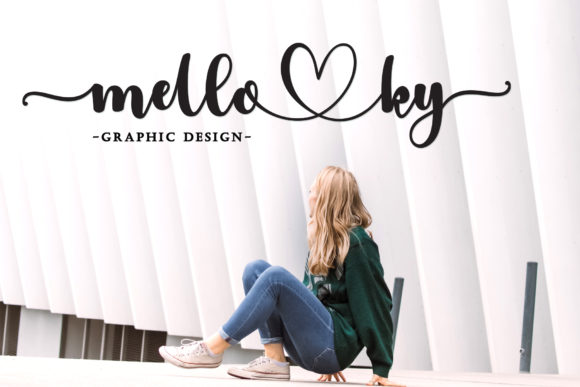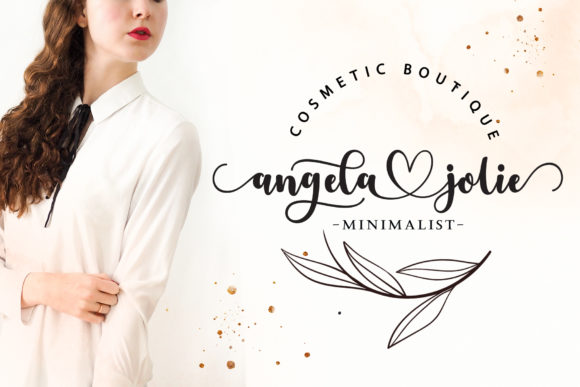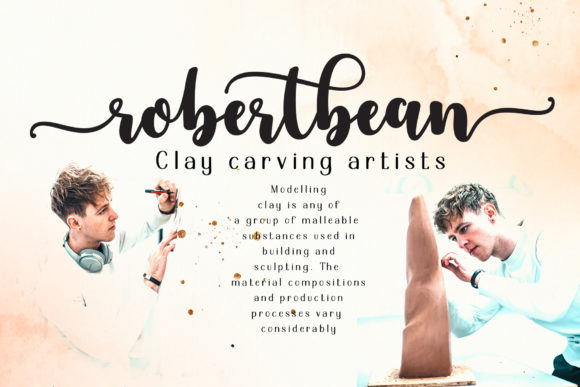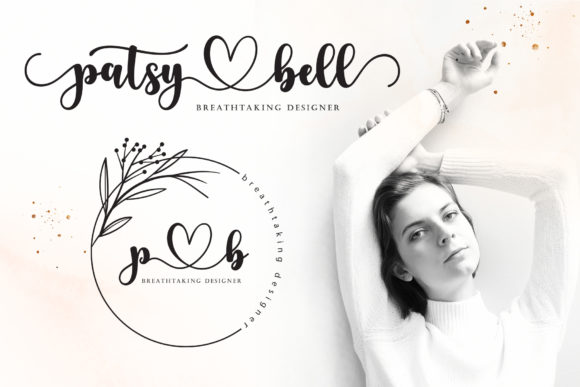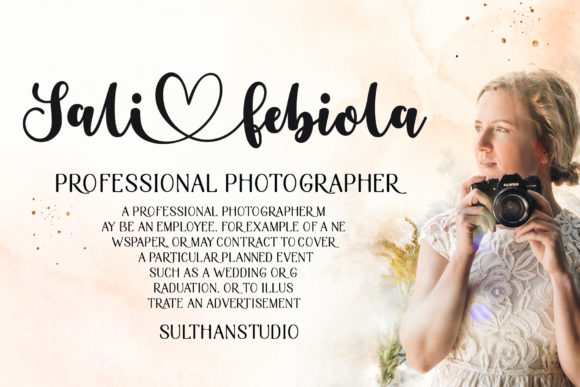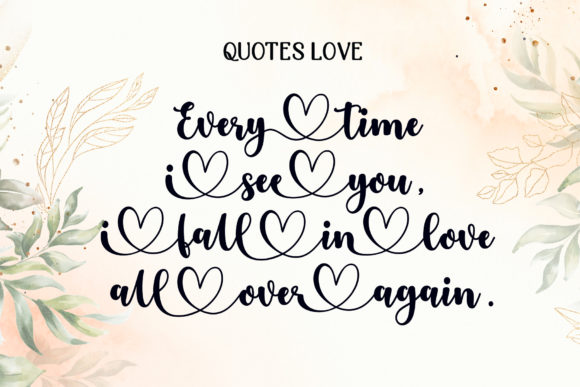
Introduction to Nela Neta Font
Have you ever been working on a creative project, and that perfect font just evades you? The one that makes your design come alive, and captures the essence of your brand? I know I have. It’s that feeling of excitement and anticipation when you finally find the perfect design resource. And today, I’m thrilled to introduce you to the Nela Neta Font, a lovely and timeless handwritten font that’s sure to take your designs to the next level.
| 👤 Author | Sulthan Studio |
This beautiful font is a must-have for any designer looking to add a personal touch to their work. With its unique and beautiful touch, the Nela Neta Font is perfect for creating eye-catching logos, branding, and quotes. Plus, its PUA encoded feature makes it easy to access all of the glyphs and swashes, giving you endless possibilities for your creative projects.
Key Features of Nela Neta Font
- High-quality design resource perfect for creative projects, offering a unique and elegant aesthetic.
- Designed with a focus on high-resolution display, ideal for use in print and digital media, including signage, logos, and branding materials.
- Supports a wide range of languages, making it a versatile design resource for international creative projects.
- Can be easily scaled to fit various design elements, from small text to large headings, without compromising on quality or readability.
Honest Review: Nela Neta Font
I recently had the chance to work with the Nela Neta Font, and I must say it’s a great addition to any designer’s toolkit. One of the things that stood out to me was the high quality of the font itself, it’s clear that the creators put a lot of time and effort into crafting a truly unique and beautiful design.
One of the things that works well with the Nela Neta Font is its versatility. It’s perfect for a wide range of creative projects, from logos and branding to web design and print materials. It’s also available as a free download, which is a huge bonus for designers on a budget.
Here are a few things that I particularly like about the Nela Neta Font:
- ✨ High quality design that’s perfect for a variety of projects
- ✨ Versatile and easy to use
- ⚠️ The font doesn’t have a transparent background, which can make it tricky to use on complex designs
- ⚠️ The font is only available in a few weights and styles, which can limit its use in certain situations
Overall, I’m really impressed with the Nela Neta Font. It’s a great design resource that’s perfect for anyone looking to add a touch of elegance and sophistication to their creative projects.
Tips for Getting the Most Out of Nela Neta Font
To get the most out of the Nela Neta Font, use it in creative projects where its high quality and transparent background will shine. Consider using it for logos, branding, or other design elements where a unique and eye-catching font is needed.
Common Use Cases for Nela Neta Font
The Nela Neta Font is ideal for a variety of use cases, including:
- Branding and identity design
- Digital design